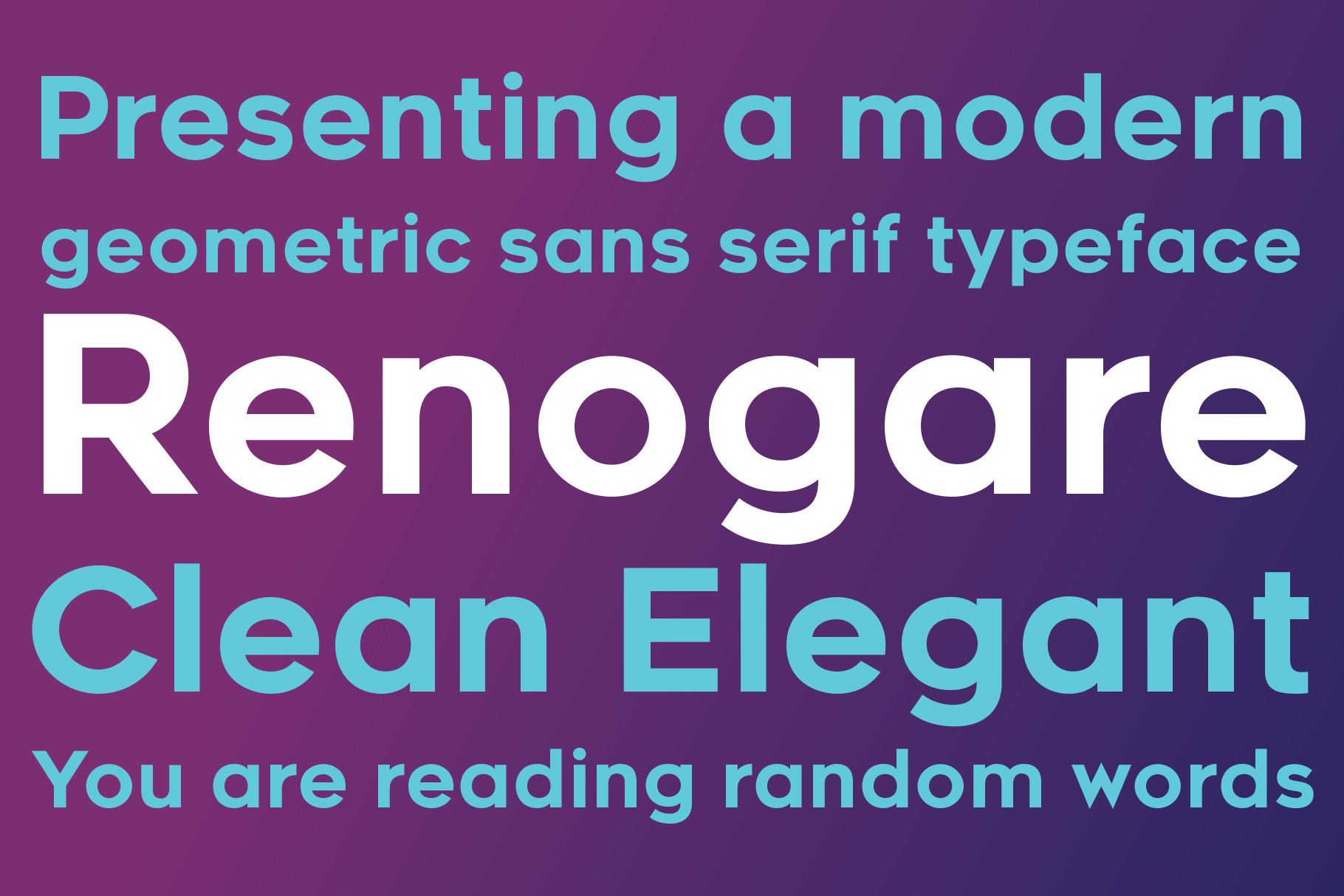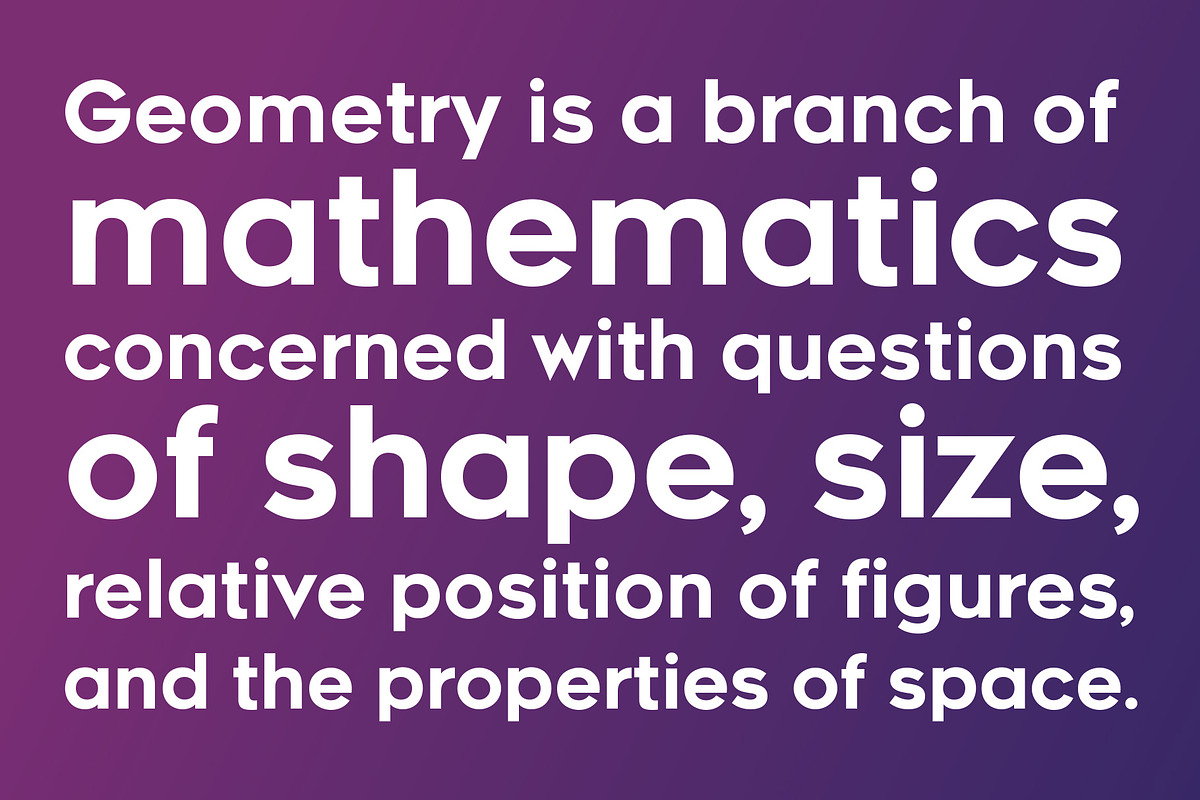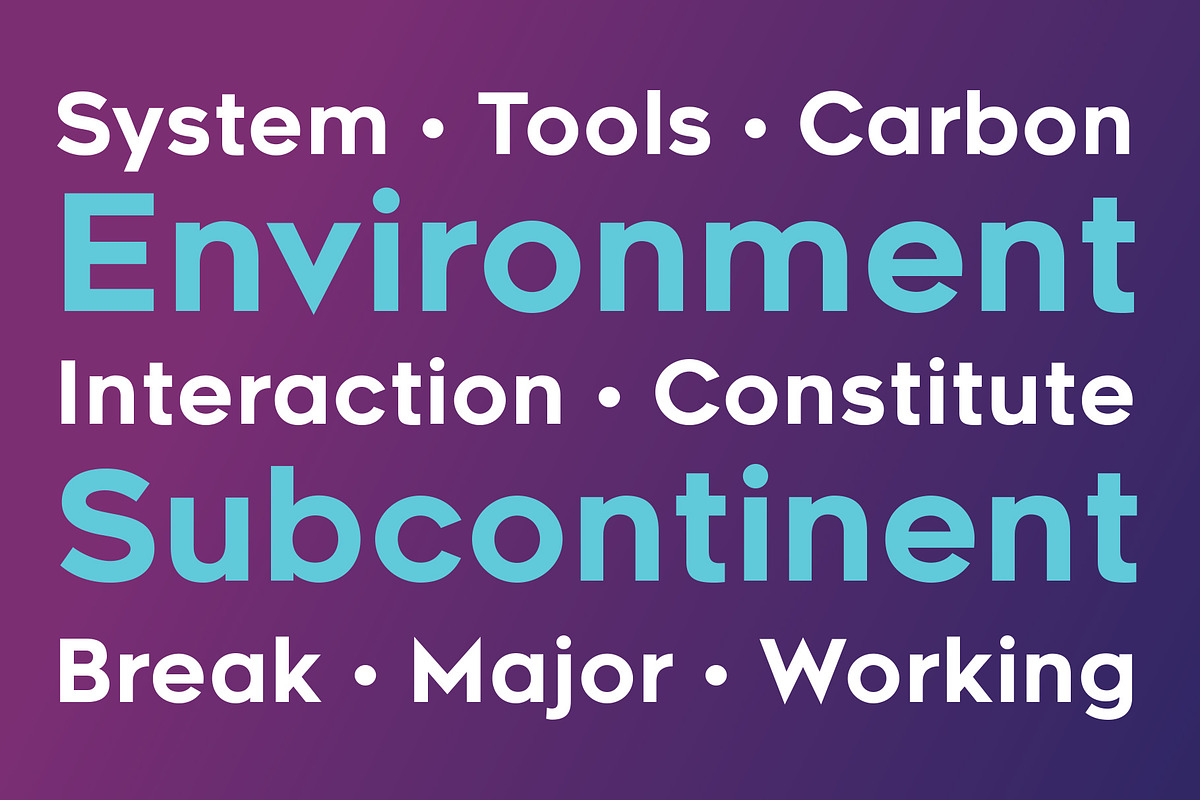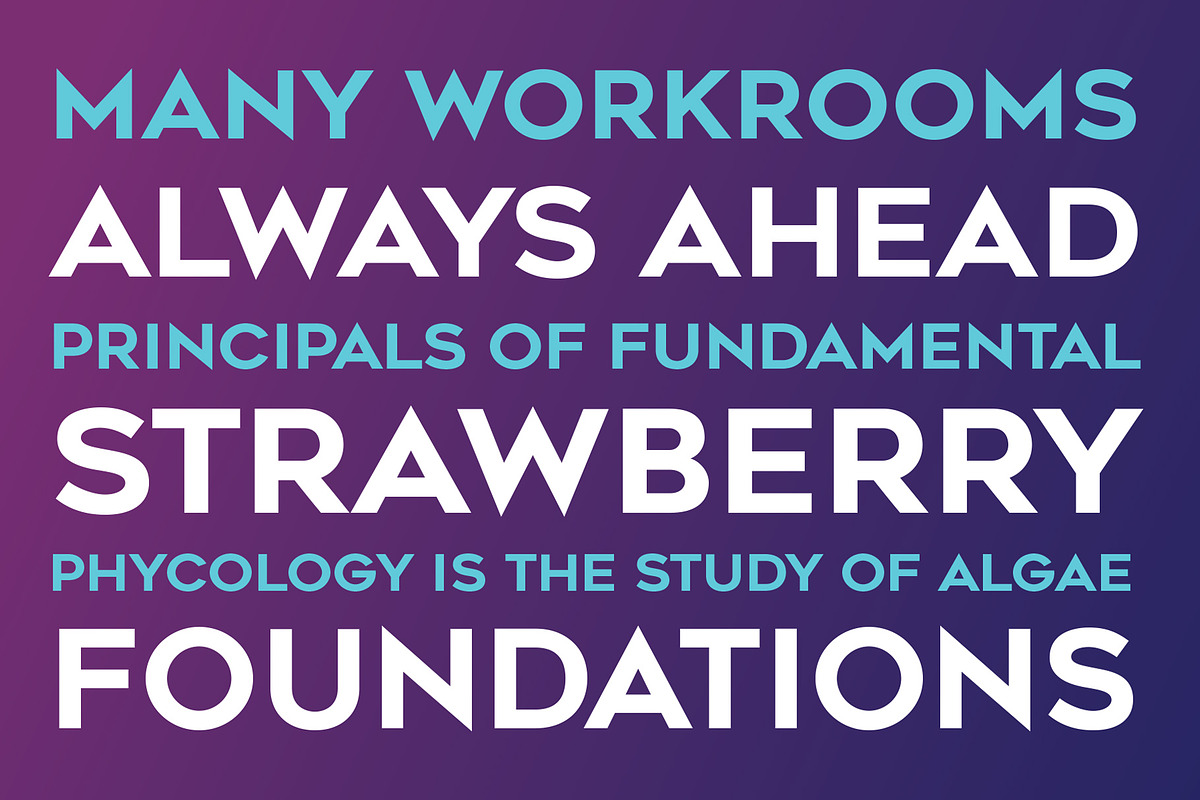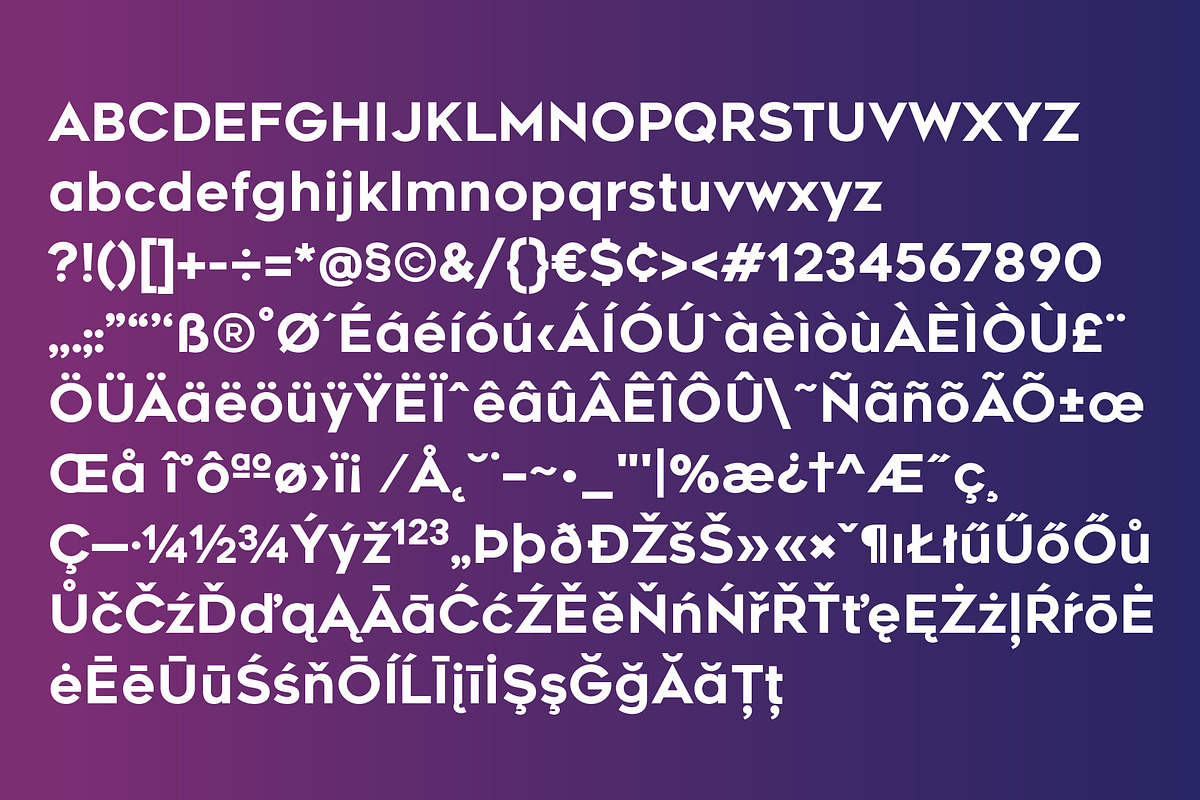
Renogare Font
Renogare is a clean, modern geometric sans serif designed for clarity and confidence. With precise shapes, balanced proportions, and smooth curves, this typeface delivers a contemporary voice that feels both technical and human. It offers excellent legibility at all sizes while maintaining a strong visual identity, perfect for branding, web portals, and forward-thinking design systems.